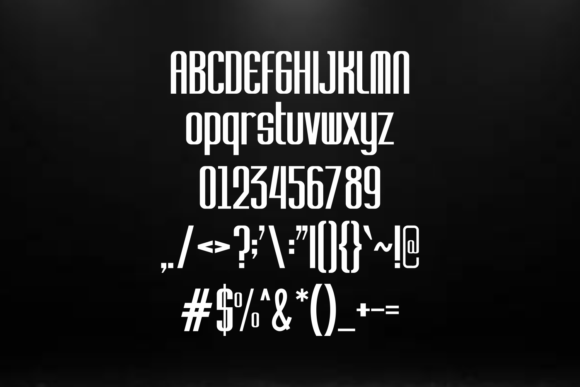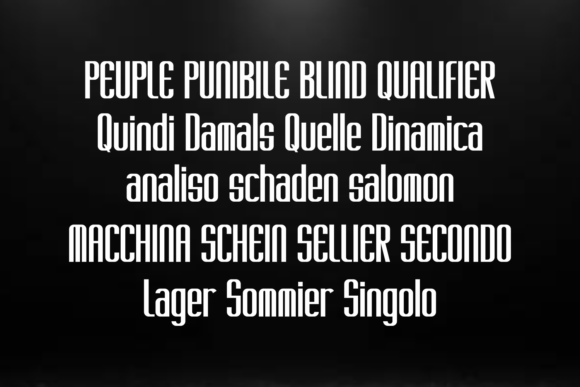
Discover the Cool and Versatile Adpogy Font
Are you tired of using the same old fonts in your designs? Look no further than Adpogy, a modern sans serif font that’s about to become your new favorite. With its clean lines, simple shapes, and highly legible design, Adpogy is the perfect addition to any font library. In this article, we’ll dive into the world of Adpogy and explore its features, benefits, and uses.
What is Adpogy Font?
Adpogy is a sans serif font, which means it doesn’t have the small lines or flourishes that you typically find at the ends of letters in serif fonts. This gives Adpogy a clean, modern look that’s perfect for a wide range of design projects. Whether you’re working on a website, a brochure, or a social media graphic, Adpogy’s sleek design is sure to make your text stand out.
Key Features of Adpogy Font
So, what makes Adpogy such a great font? Here are just a few of its key features:
• Clean and Simple Design: Adpogy’s design is highly legible, making it easy to read even at small sizes.
• Versatile: Adpogy works well for a wide range of design projects, from digital media to print materials.
• Modern Look: Adpogy’s sans serif design gives it a modern, contemporary look that’s perfect for designs that need to feel fresh and current.
Benefits of Using Adpogy Font
So, why should you choose Adpogy for your next design project? Here are just a few benefits of using this versatile font:
• Elevate Your Designs: Adpogy has the potential to elevate any creation, making it a valuable addition to your font library.
• Improve Legibility: Adpogy’s clean design makes it easy to read, even for readers who may be sensitive to certain fonts.
• Save Time: With Adpogy, you can create professional-looking designs quickly and easily, without spending hours searching for the perfect font.
Who Can Benefit from Adpogy Font?
Adpogy is a versatile font that can be used by a wide range of designers and crafters, including:
• Graphic Designers: Adpogy is perfect for graphic designers who need a clean, modern font for their designs.
• Web Designers: Adpogy’s legible design makes it a great choice for web designers who need a font that will work well on a variety of devices.
• Crafters: Adpogy is also a great choice for crafters who want to add a professional touch to their DIY projects.
How to Use Adpogy Font
Using Adpogy is easy! Here are a few tips for getting started:
• Pair it with Other Fonts: Adpogy works well when paired with other fonts, so don’t be afraid to experiment with different combinations.
• Use it for Headings and Body Text: Adpogy’s legible design makes it suitable for both headings and body text.
• Experiment with Different Sizes: Adpogy looks great at a variety of sizes, so don’t be afraid to experiment with different font sizes to find the one that works best for your design.
In conclusion, Adpogy is a cool and versatile sans serif font that’s perfect for designers and crafters who want to elevate their creations. With its clean design, modern look, and highly legible text, Adpogy is sure to become a valuable addition to any font library. Whether you’re working on a website, a brochure, or a social media graphic, Adpogy is a great choice for any design project.